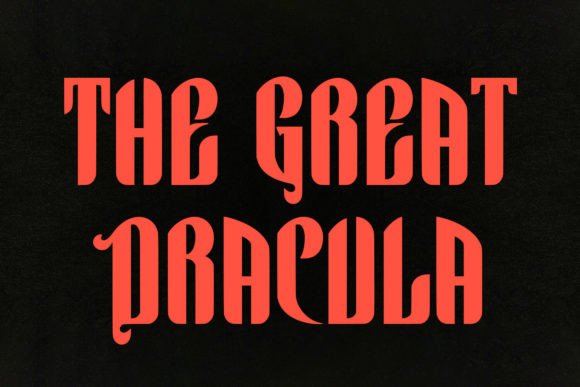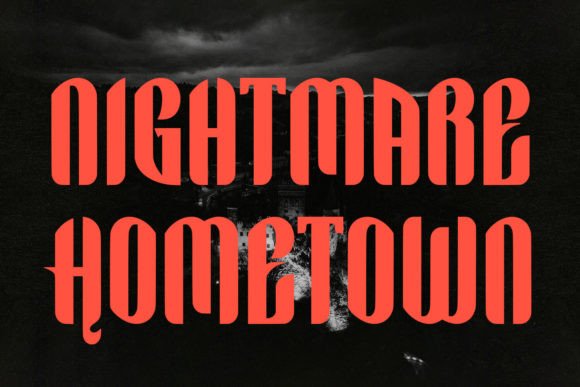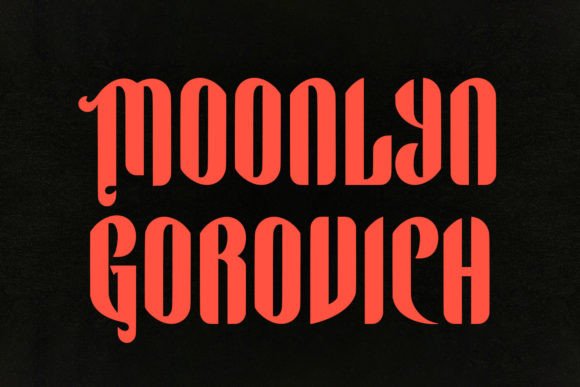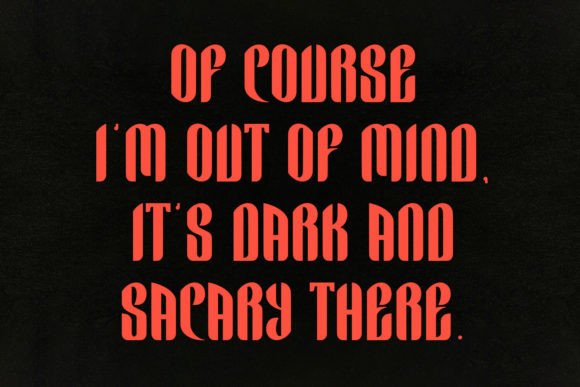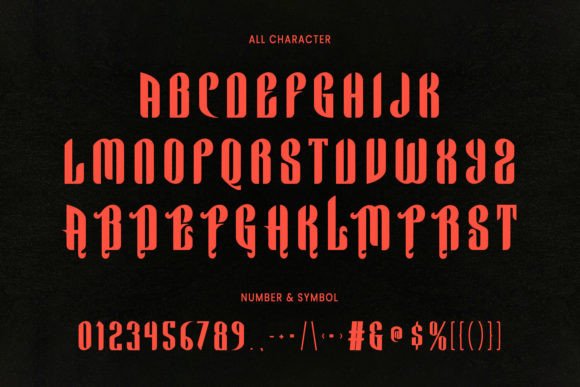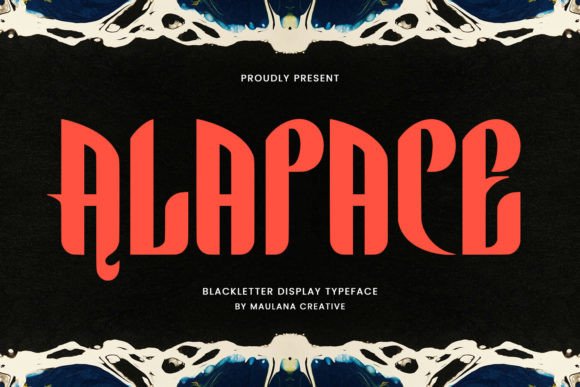
Introducing Alapace Font: A Bold and Stylish Blackletter Display Typeface
Are you looking for a font that can add a touch of elegance and sophistication to your designs? Look no further than Alapace Font, a stunning Blackletter Display Typeface that’s perfect for creating eye-catching headlines, logos, and posters with a vintage or medieval feel.
What is Alapace Font?
Alapace Font is a bold and stylish typeface that’s inspired by old Gothic scripts. Its sharp, dramatic letters are sure to make a statement in any design project. Whether you’re a designer, craftor, or DIY enthusiast, Alapace Font is a great addition to your font library.
Key Features of Alapace Font
- Blackletter Display Typeface: Alapace Font is a classic Blackletter Display Typeface that’s perfect for creating bold and eye-catching headlines.
- Sharp and Dramatic Letters: The font features sharp, dramatic letters that are inspired by old Gothic scripts.
- Vintage or Medieval Feel: Alapace Font is great for creating designs with a vintage or medieval feel.
Uses of Alapace Font
Alapace Font is a versatile typeface that can be used in a variety of design projects, including:
- Headlines and Titles: Use Alapace Font to create bold and eye-catching headlines and titles for your designs.
- Logos and Branding: The font is perfect for creating logos and branding materials with a vintage or medieval feel.
- Posters and Flyers: Alapace Font is great for creating posters and flyers that need to grab attention.
- Signage and Displays: The font can be used for signage and displays that require a bold and stylish typeface.
Benefits of Using Alapace Font
There are many benefits to using Alapace Font in your design projects, including:
- Unique and Eye-Catching: Alapace Font is a unique and eye-catching typeface that’s sure to make your designs stand out.
- Highly Versatile: The font can be used in a variety of design projects, from headlines and titles to logos and branding materials.
Tips for Using Alapace Font
Here are some tips for using Alapace Font in your design projects:
- Use it Sparingly: Alapace Font is a bold and eye-catching typeface, so use it sparingly to avoid overwhelming your designs.
- Pair it with Other Fonts: The font pairs well with other fonts, so experiment with different combinations to find the perfect look for your designs.
- Experiment with Different Sizes: Alapace Font looks great in a variety of sizes, so experiment with different sizes to find the perfect fit for your designs.
Alapace Font is a stunning Blackletter Display Typeface that’s perfect for creating eye-catching headlines, logos, and posters with a vintage or medieval feel. Its sharp, dramatic letters and PUA encoding make it a great addition to any font library. Whether you’re a designer, craftor, or DIY enthusiast, Alapace Font is a great choice for your next design project.